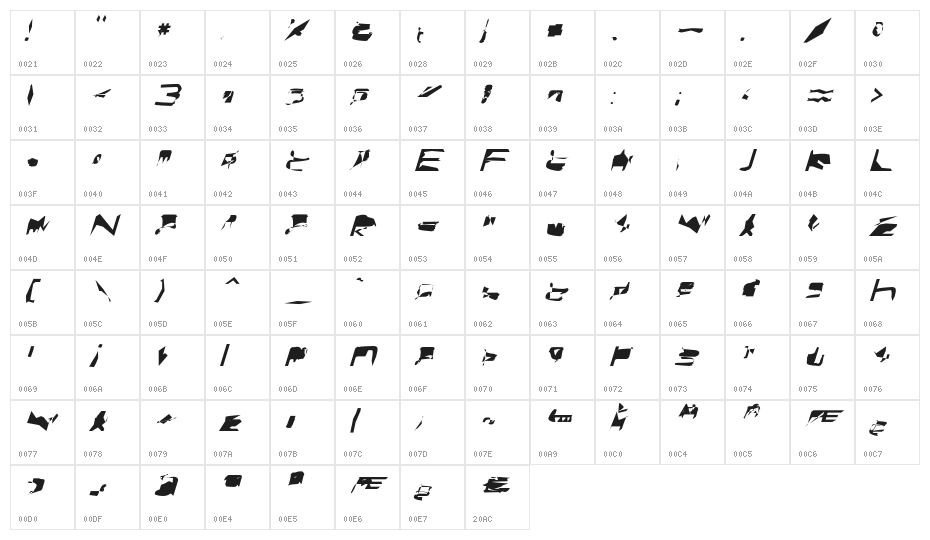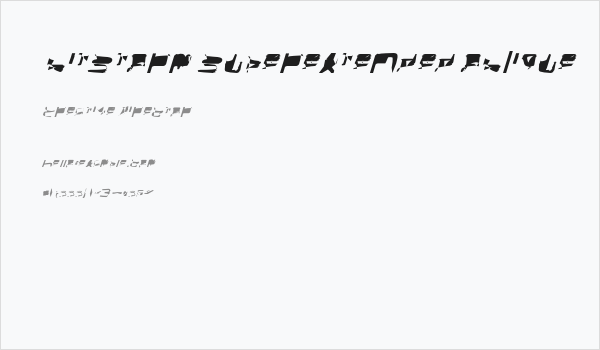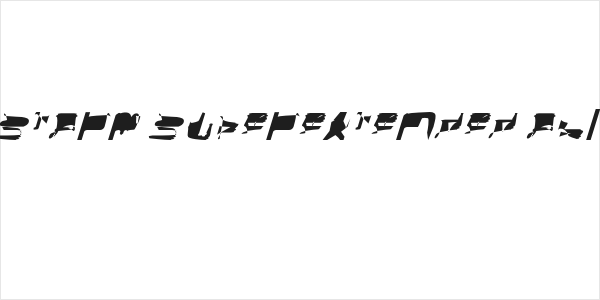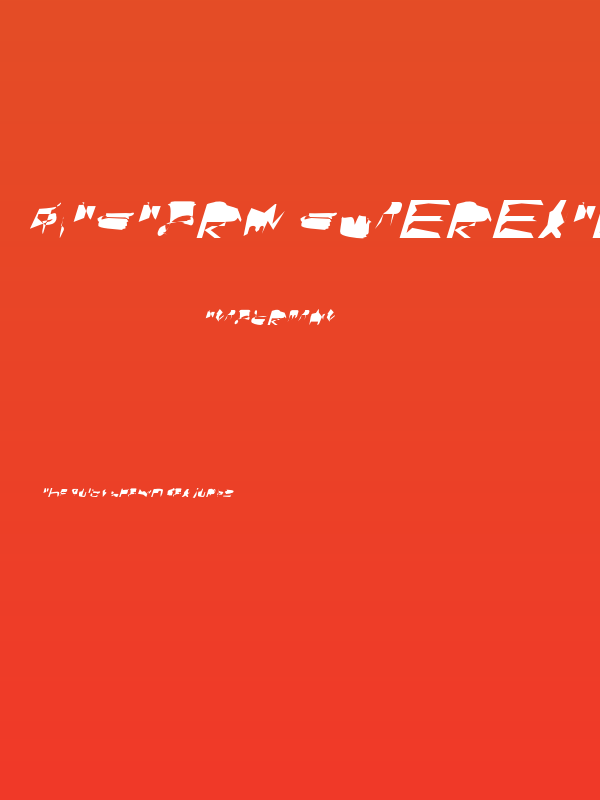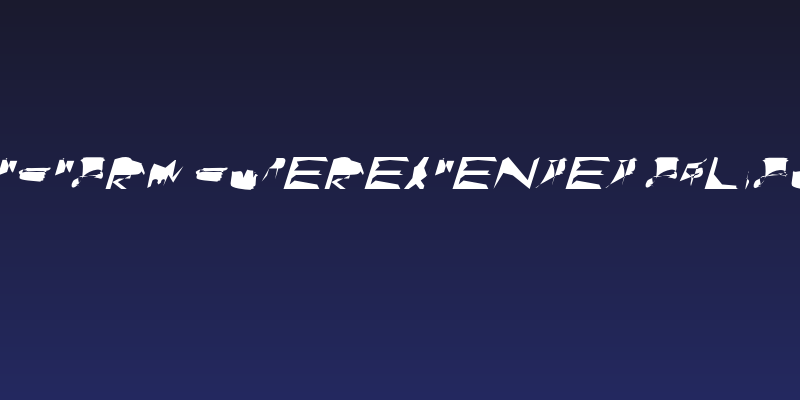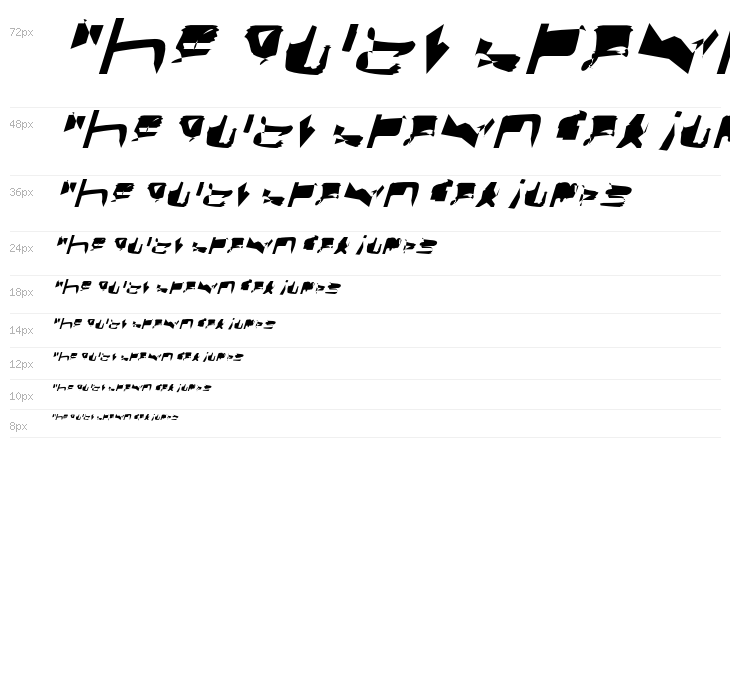
bitstorm superextended oblique Font
bitstorm superextended oblique Description
This font features a highly stylized and abstract design, characterized by sharp, angular shapes and fragmented forms. The letters appear as if they are in motion, with dynamic cuts and slashes that create a sense of energy and movement. The overall appearance is bold and striking, making it ideal for attention-grabbing designs. The characters are heavily distorted, giving them an edgy and futuristic feel. Despite the chaotic appearance, each letter maintains a distinct form, ensuring readability.
| Overall Style | Futuristic, Abstract |
| Use Case | Logos, Posters, Album covers |
| Proposed Projects | Ideal for use in modern art projects, edgy branding, music album covers, or any design requiring a bold, futuristic aesthetic. |